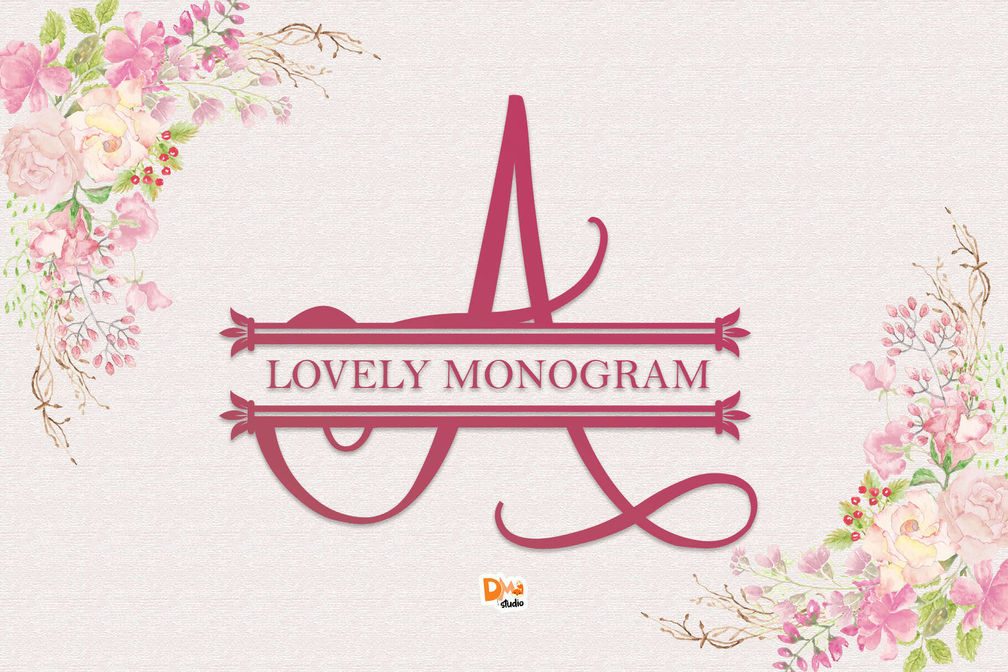
Lovely Monogram
Lovely Monogram – Elegant Decorative Font
Lovely Monogram is a sophisticated and charming font designed for elegant and stylish typography. With its beautifully crafted letters and decorative elements, this font is perfect for wedding invitations, luxury branding, stationery, personalized gifts, and elegant logos. Its timeless appeal adds a touch of grace and refinement to any design.
• Elegant and Decorative Design: Perfect for monograms and initials.
• Ideal for Luxury and Wedding-Themed Projects: Great for invitations, branding, and personalized gifts.
• Versatile Display Font: Suitable for both classic and modern designs.
• Complete Character Set: Includes uppercase, lowercase, numbers, punctuation, and symbols.